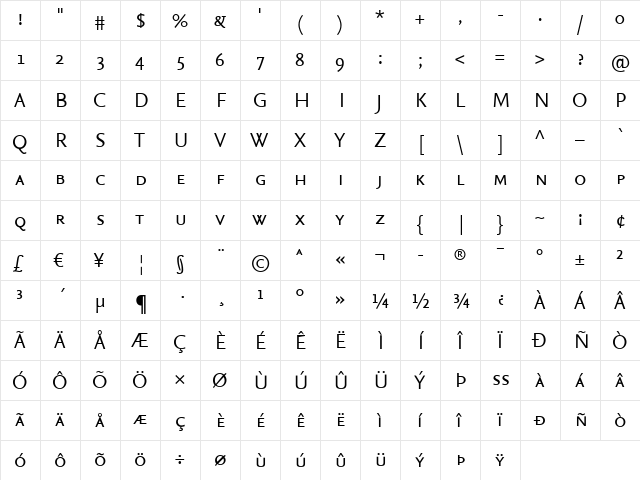
SeriaSans-RegularCaps Regular
| Foundry | Martin Majoor, published by Fontshop International for the FontFont library |
Design Context for SeriaSans-RegularCaps Typeface
SeriaSans-RegularCaps offers clean, dependable letterforms without strong stylistic allegiance, making it a practical choice for designers who need flexibility.